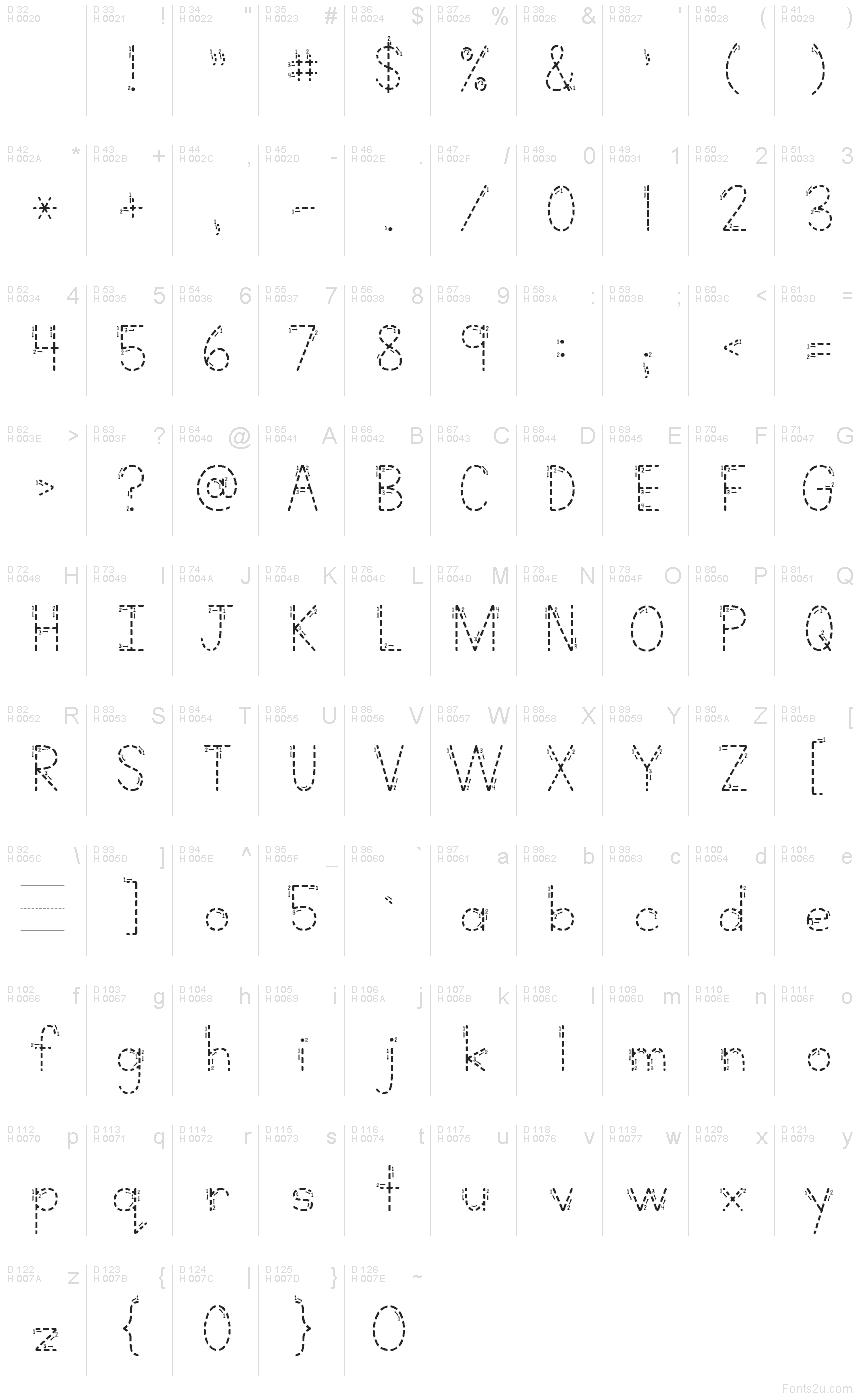
KG Teacher Created Arrows
KG Teacher Created Arrows font by Kimberly Geswein is a free school script typeface featuring hand‑drawn arrows that feel like they were sketched with a felt-tip on laminated charts. The strokes are friendly and rounded, with tidy rhythm so your notes and callouts read fast without visual clutter. Part of the KG Teacher Created family, it gives you lively direction cues baked right into the lettering—no extra graphics needed.
Using KG Teacher Created Arrows, you can guide eyes on worksheets, anchor charts, slide decks, classroom signage, lesson plans, and interactive notebooks. The arrows add motion and clarity, great for steps, labels, and quick emphasis. This free font works beautifully at medium sizes for legibility; pair it with a clean sans or another KG Teacher Created typeface for body copy and you’re set.